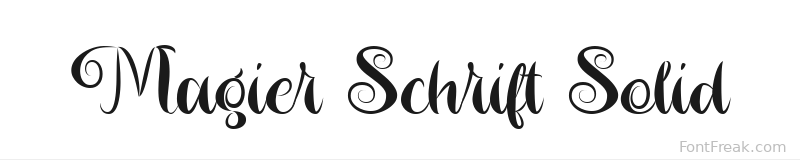
Magier Schrift
Magier Schrift Solid
Magier Schrift, designed by Misti Hammers, is a captivating script font that exudes elegance and charm. This decorative typeface features fluid, sweeping strokes and playful curls, giving it a whimsical yet sophisticated appearance. The stroke weight is consistent, offering a harmonious balance that enhances readability while maintaining a decorative flair. The generous spacing between characters allows for easy legibility, making it suitable for various creative applications.
This font shines in several specific use cases. Wedding invitations benefit from its romantic and enchanting style, setting the perfect tone for a special day. It also works beautifully for greeting cards, where its warm and inviting characteristics can convey heartfelt messages. Restaurant menus can leverage the font’s elegance, creating an appealing aesthetic that enhances the dining experience. Additionally, Magier Schrift can be utilized in branding materials, giving small businesses a distinctive identity that stands out in a competitive market. It’s an ideal choice for graphic designers and content creators looking to add a touch of personality to their projects.
The target audience for Magier Schrift includes graphic designers, small business owners, and anyone in need of a unique typeface that conveys creativity and style. Its freeware license makes it an accessible option for those on a budget while maintaining a professional look.
What sets Magier Schrift apart is its ability to blend sophistication with a playful spirit, making it versatile enough for both formal and casual applications. Whether you’re crafting a romantic invitation or a trendy logo, the Magier Schrift font free download offers a unique solution that captures attention and leaves a lasting impression.